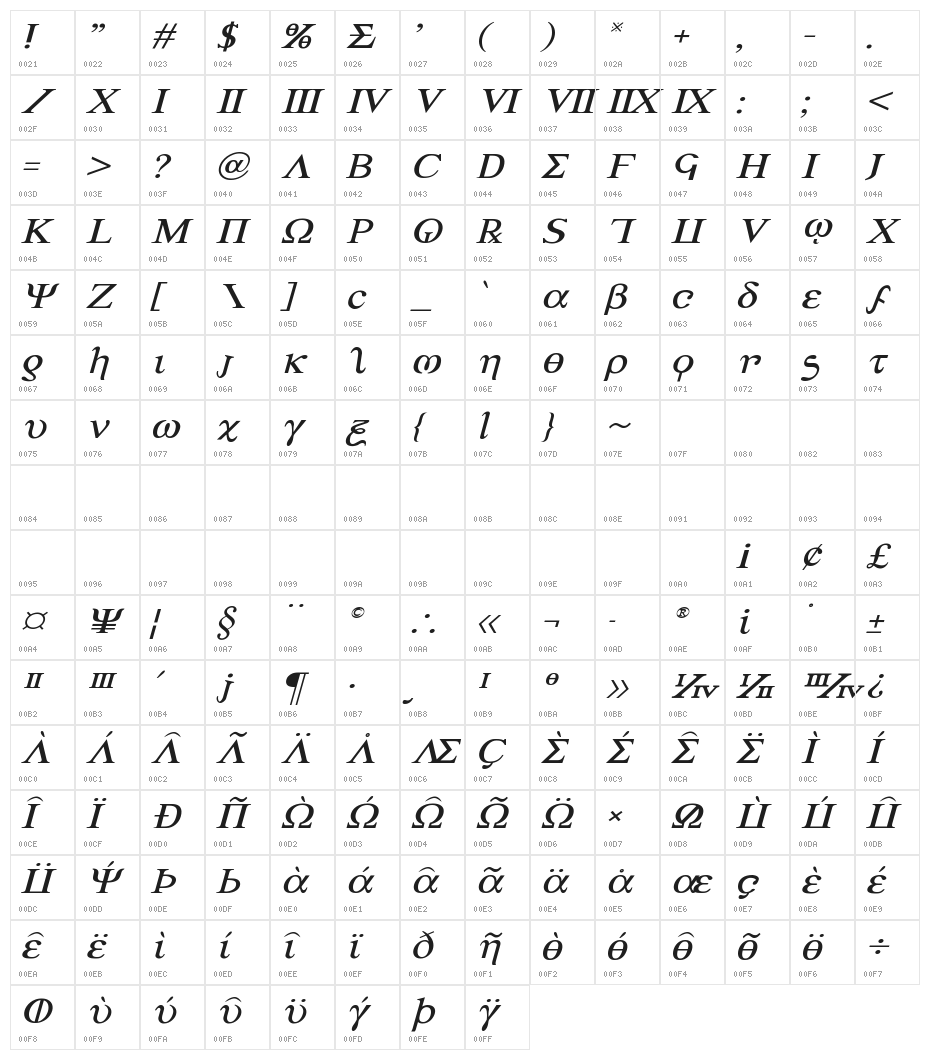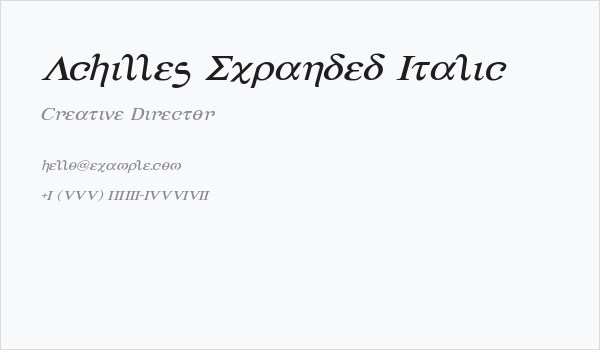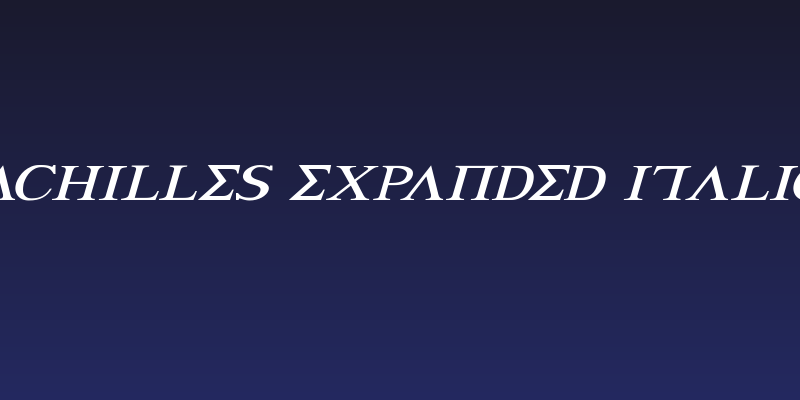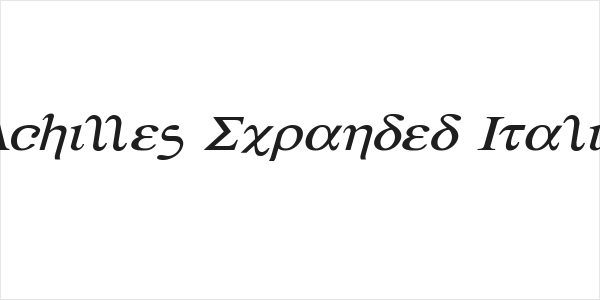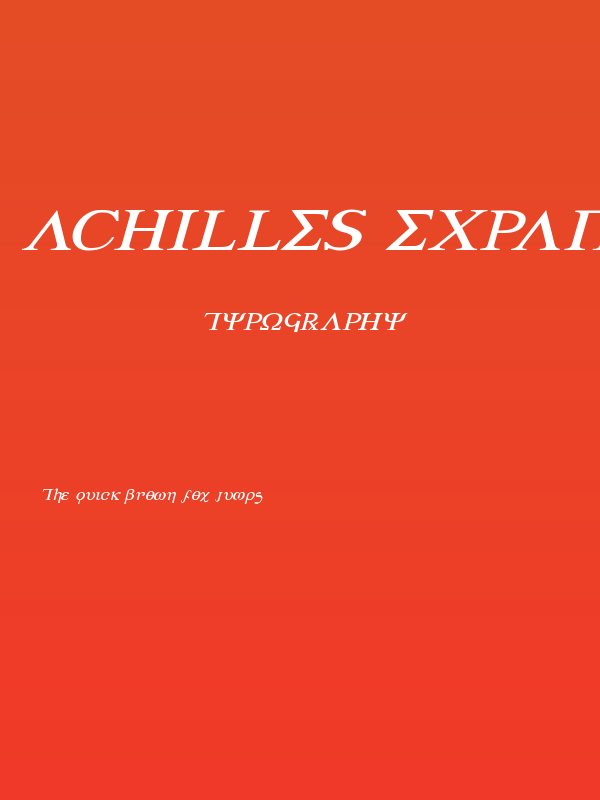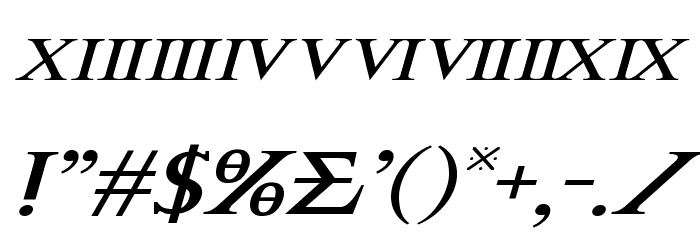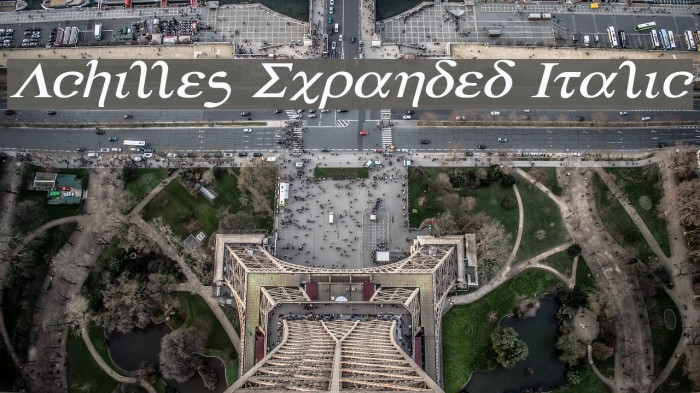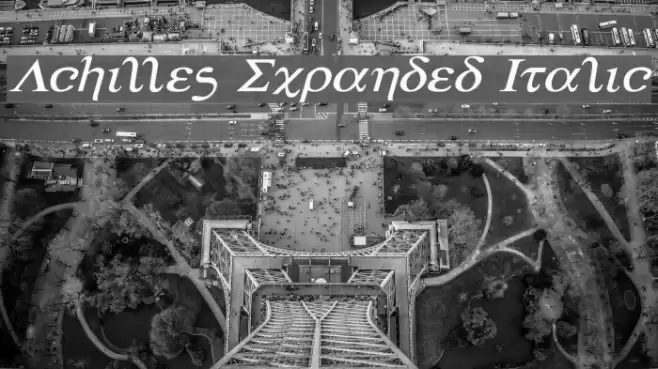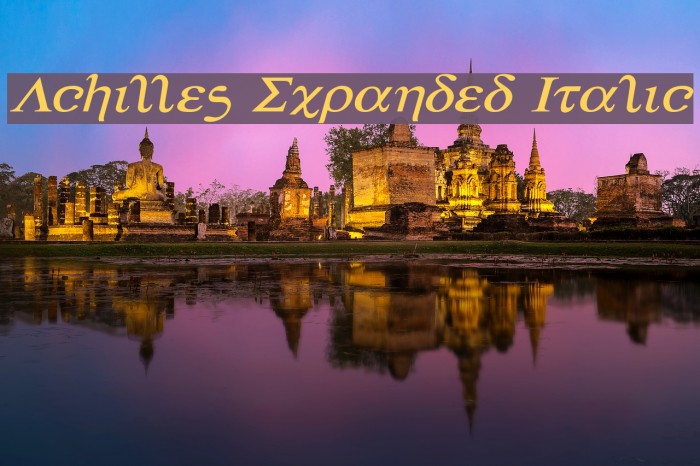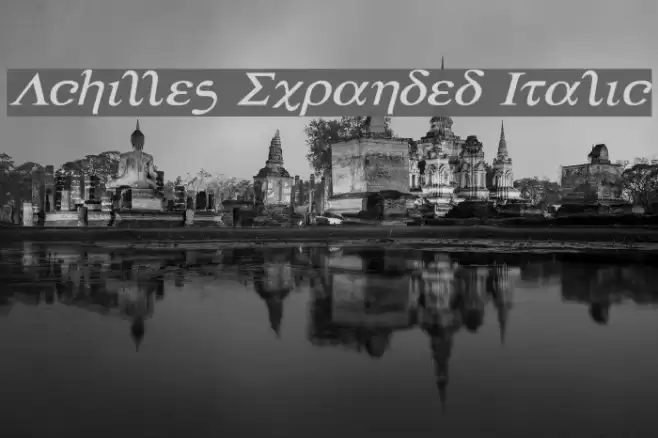
Achilles Expanded Italic Font
Achilles Expanded Italic Description
This font features an elegant and sophisticated design with a distinct italic slant, giving it a dynamic and fluid appearance. The characters are expanded, providing a sense of openness and readability. The strokes are moderately thick, offering a medium contrast that enhances legibility while maintaining a stylish look. The serifs are subtle yet pronounced, adding a classic touch to the overall modern aesthetic. This typeface is well-suited for projects that require a blend of tradition and contemporary flair.
| Overall Style | Modern Classic |
| Use Case | Headlines, Logos, Editorial Design |
| Proposed Projects | Ideal for use in branding, editorial design, book covers, and elegant invitations. |